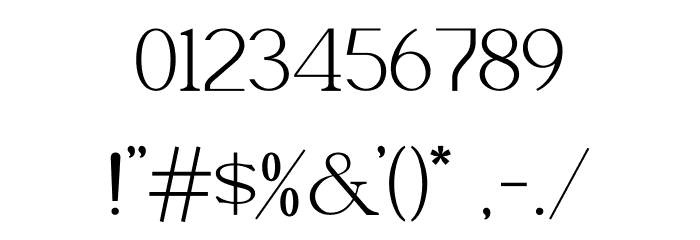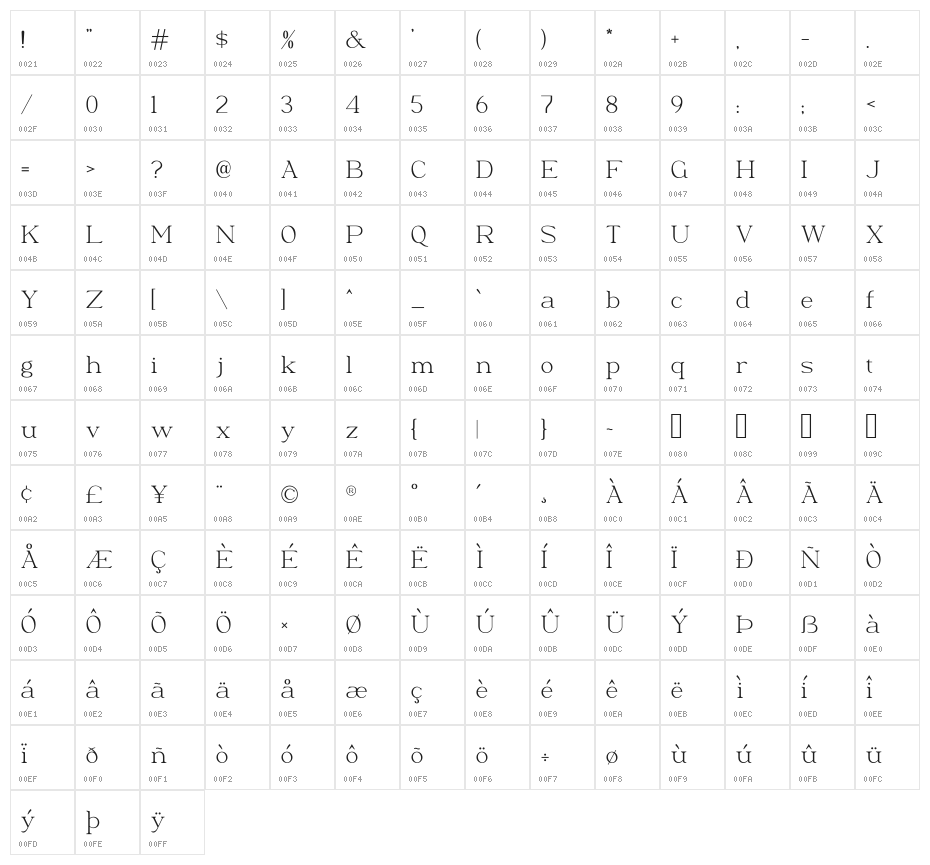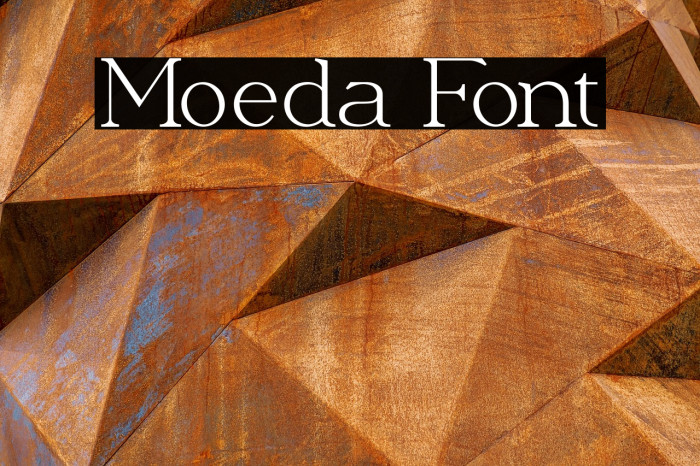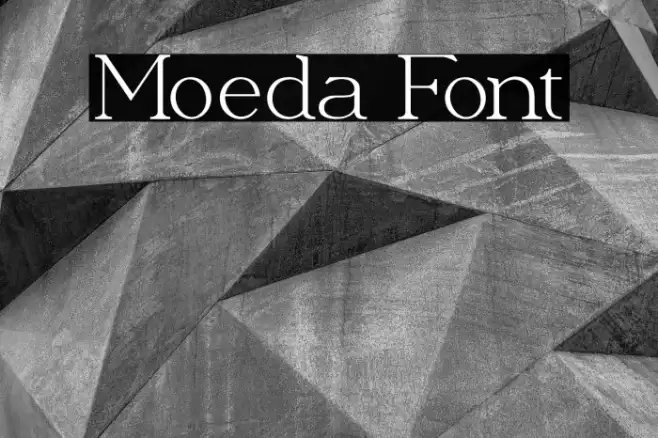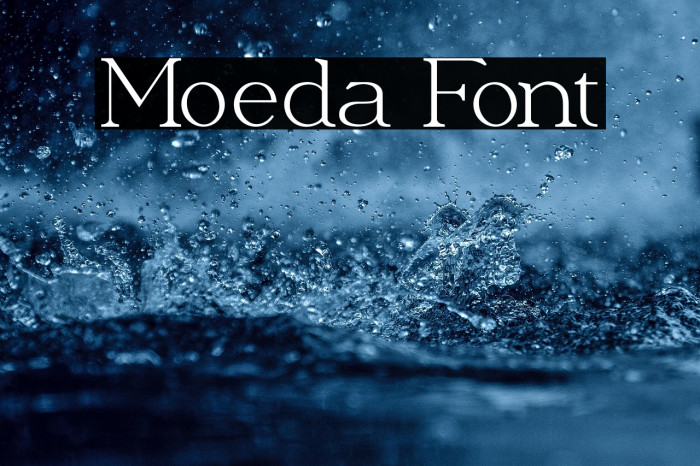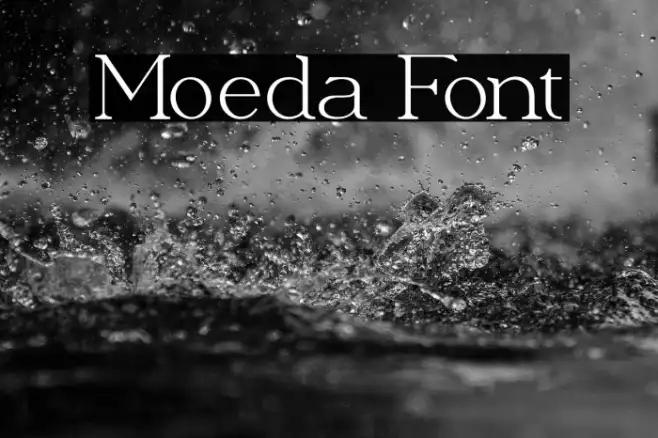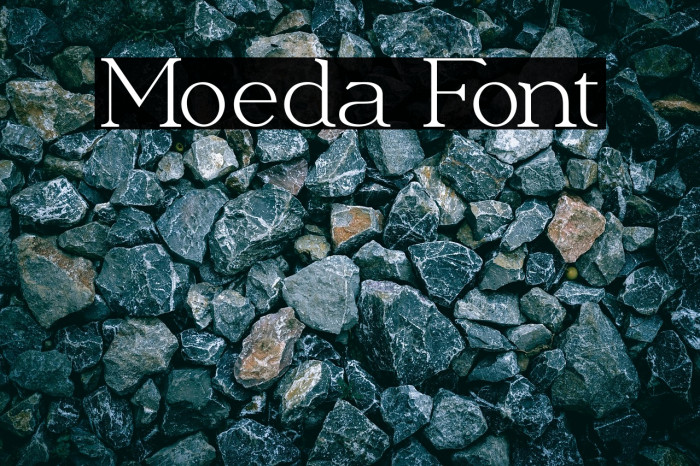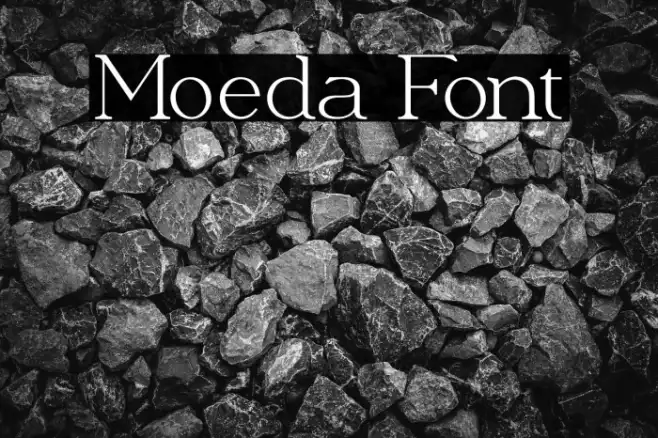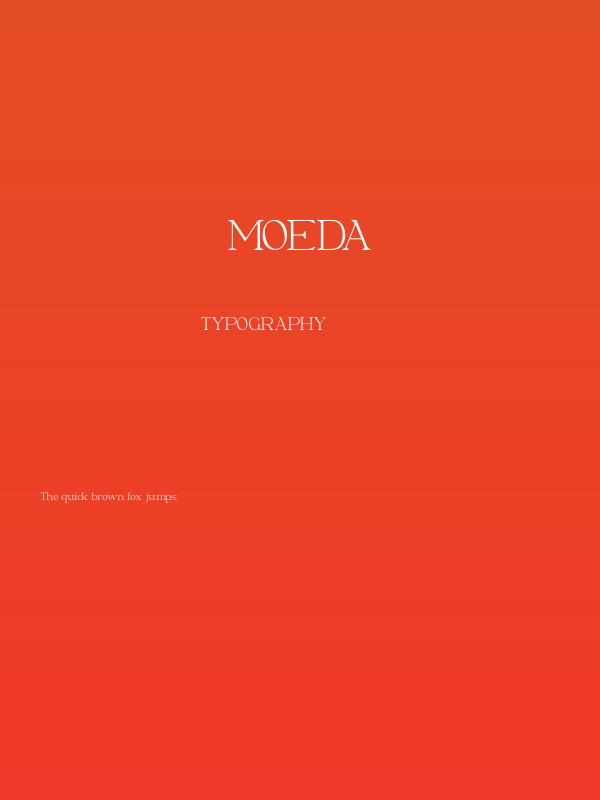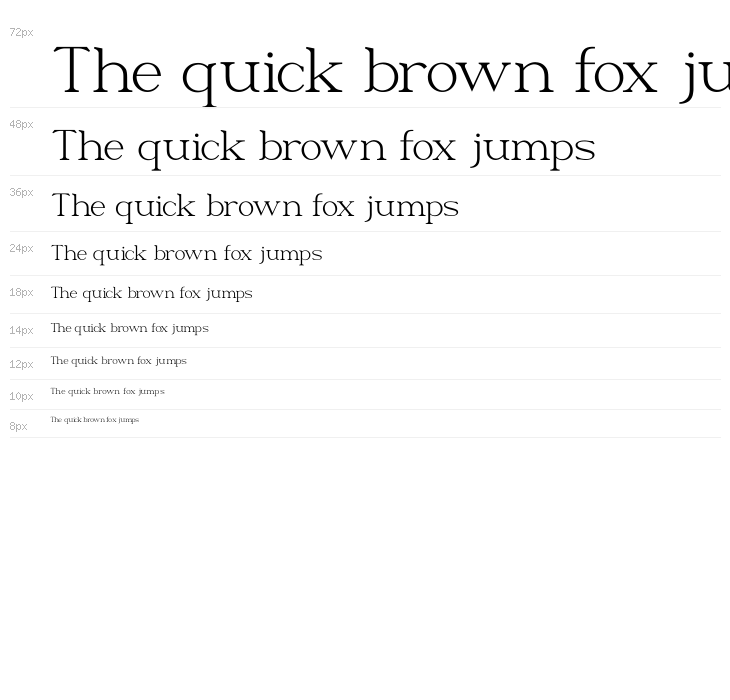
This font exhibits a classic serif style with elegant, thin strokes and subtle curves. The uppercase letters are tall and stately, featuring sharp serifs that add a touch of sophistication. The lowercase letters maintain a consistent style, with rounded forms and a harmonious balance between thick and thin lines. Numbers are clear and legible, with a traditional appearance that complements the overall aesthetic. Special characters are designed with the same attention to detail, ensuring a cohesive look across all glyphs. This font is suitable for projects that require a refined and timeless appearance.
| Proposed Projects | Ideal for editorial design, book covers, formal invitations, and branding that requires a touch of elegance. |